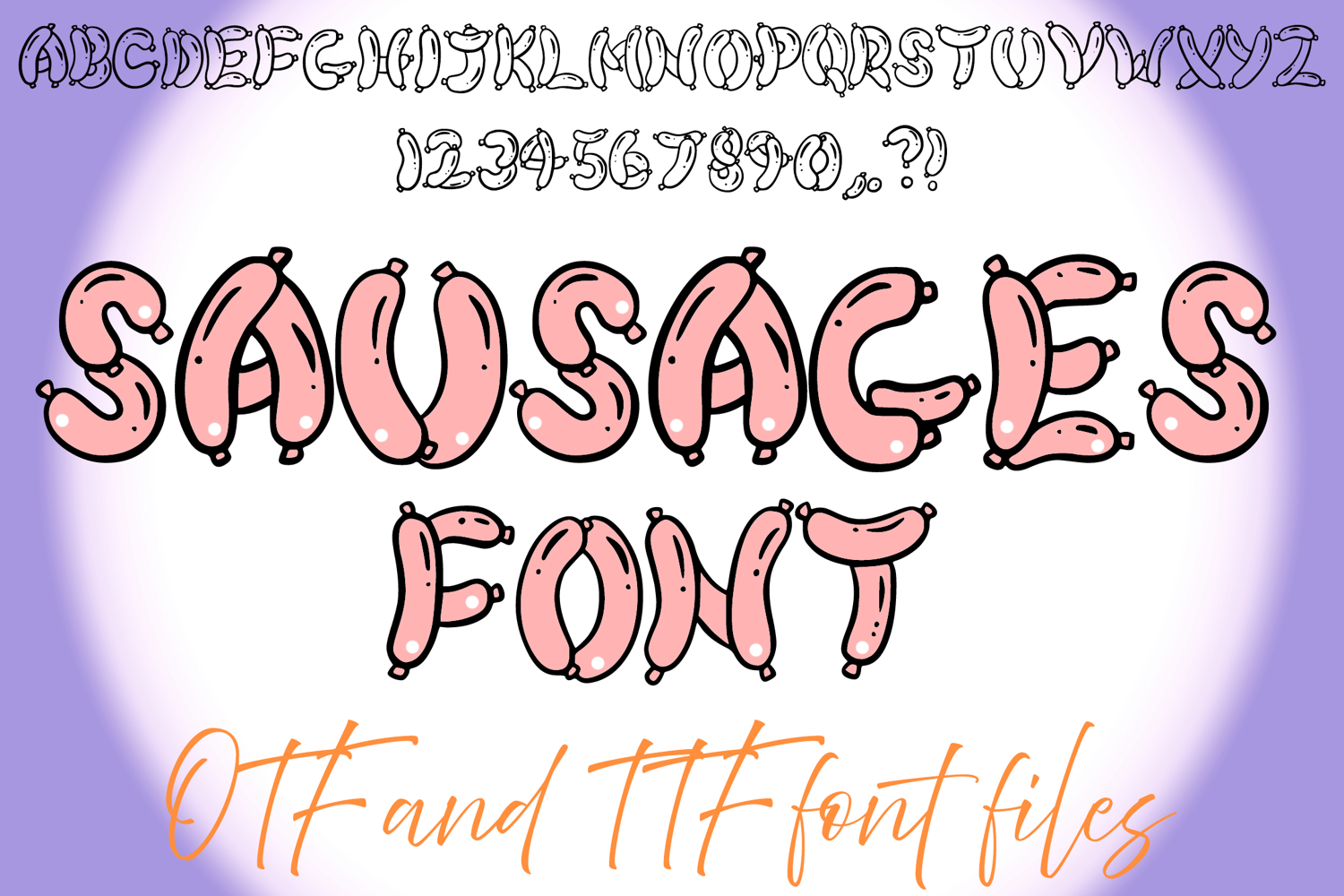
Sausages Font is a fun and flavorful display typeface designed entirely from plump, juicy sausage links! Each character is crafted to look like a cartoonish meat treat, making this font perfect for food-themed projects, quirky branding, children’s party invites, or BBQ event posters. Its playful charm and tasty visuals make it an eye-catching and humorous choice for any design that doesn’t take itself too seriously.